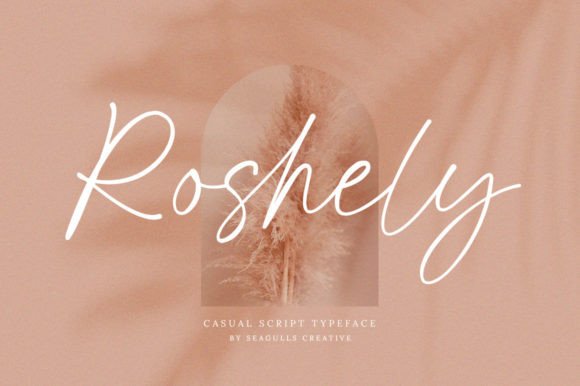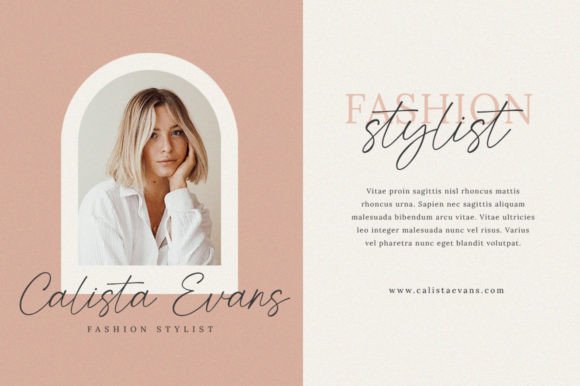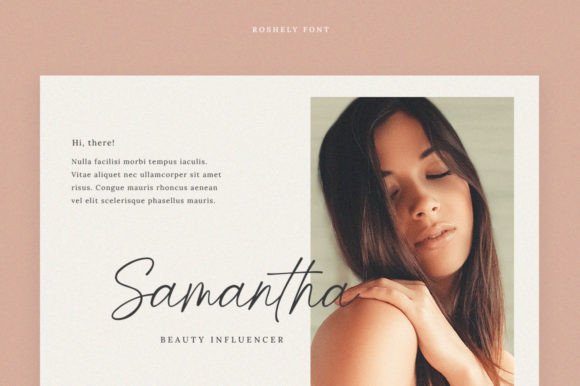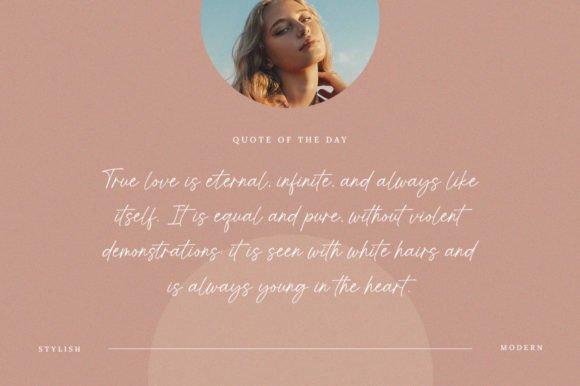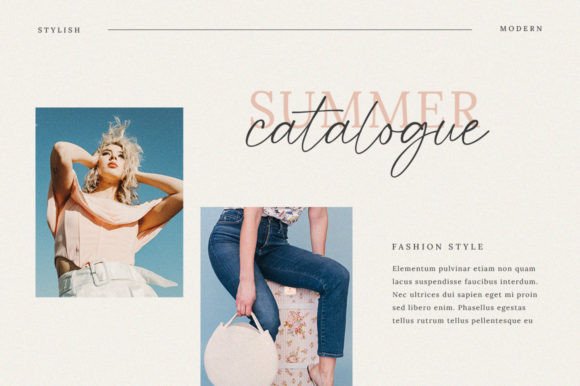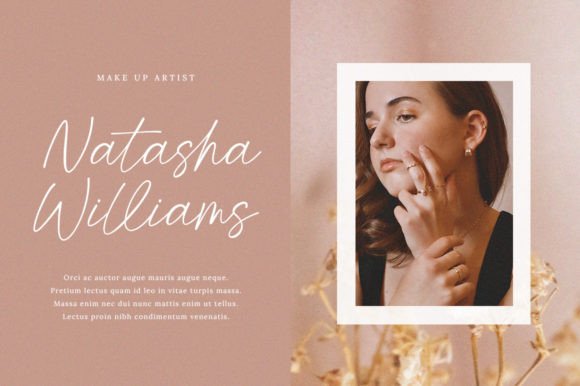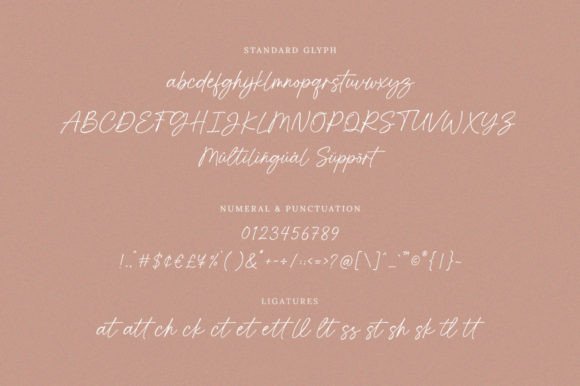
Roshely Font
About Roshely Font
**Roshely: A Casual Script Font That Exudes Elegance**
Meet **Roshely**, an exquisite script font that effortlessly marries delicate curves with a harmonious blend of thick and thin lines. This font is a testament to grace and style, making it the perfect choice for a wide range of creative applications.
One of the standout qualities of **Roshely** is its versatility, making it an ideal option for creating signature logos that leave a memorable mark. The fluidity of its letters and the balance between thickness and finesse create a unique visual identity that’s sure to capture attention.
**Roshely** shines in the world of branding, helping businesses establish a distinctive and elegant image. Whether you’re working on watermarks for your photography studio, designing wedding invitations that evoke romance, or crafting advertisements that demand attention, this font adds a touch of sophistication that’s unparalleled.
Product designs come to life with the addition of **Roshely**, as it infuses them with an air of timeless beauty. Its ability to create eye-catching social media posts ensures your online presence is captivating and engaging, setting you apart from the crowd.
In essence, **Roshely** is more than just a font; it’s a design asset that elevates your creative projects to new heights of elegance. Its delicate curves and refined balance between thick and thin lines make it a versatile tool that adds a touch of sophistication to your work.
In conclusion, whether you’re designing signature logos, branding materials, wedding invitations, or captivating social media posts, **Roshely** is the font that effortlessly combines casual charm with timeless elegance. Choose **Roshely** to make a lasting impression and breathe life into your creative projects.